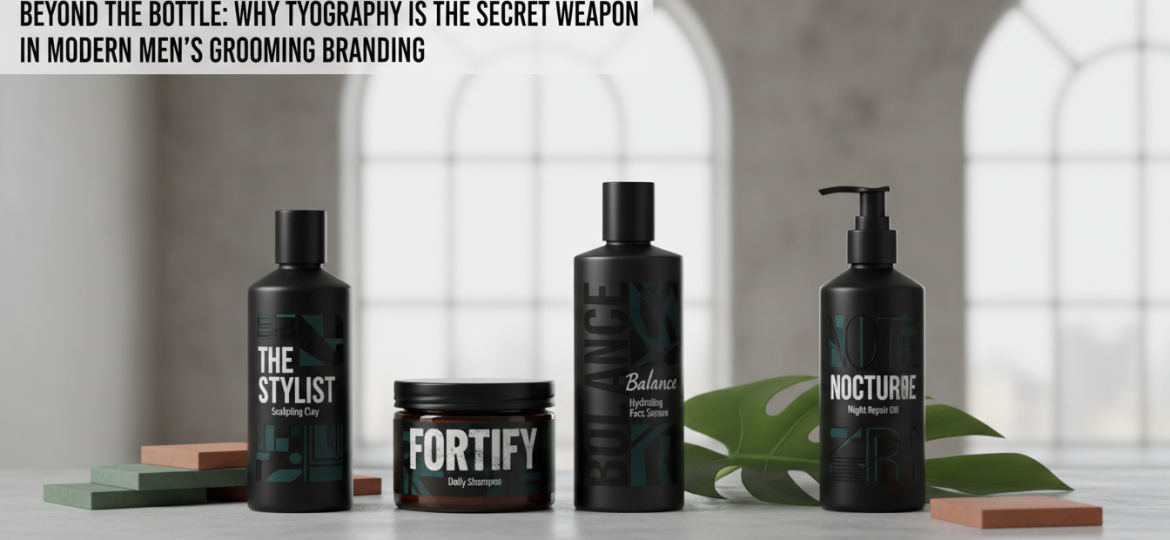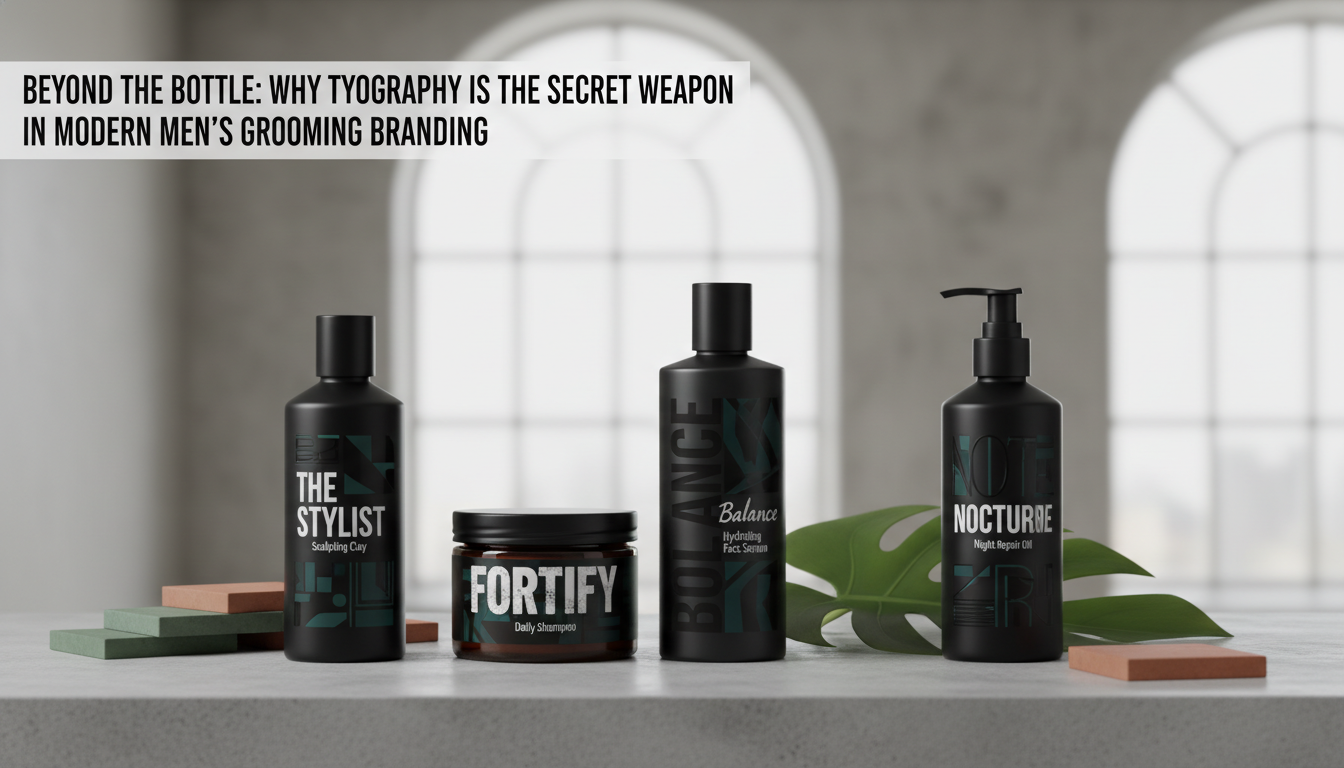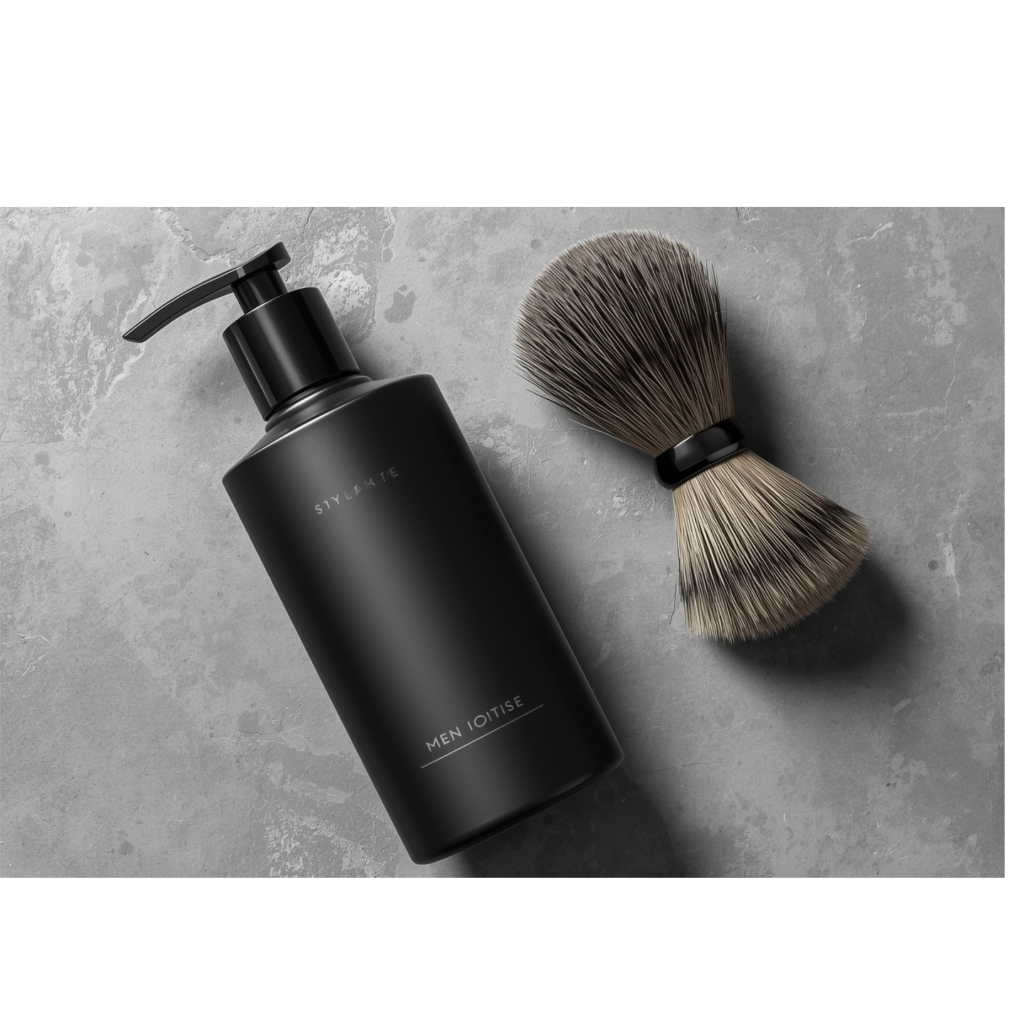
The modern man’s bathroom cabinet has undergone a profound transformation. Gone are the days of aggressive, neon-colored ‘3-in-1’ body washes screaming from the shelves with jagged, hyper-masculine fonts. Today, we are witnessing a quiet revolution. If you are an entrepreneur or designer in this space, you must pay attention to this evolution. Discover how the shift in men’s grooming trends demands a new visual language. Learn why minimalist typography and packaging build premium brand identity. Recommended Fonts to Elevate Your Grooming Brand are not merely aesthetic choices; they are the very foundation of your market positioning.
In my experience analyzing hundreds of emerging direct-to-consumer (DTC) brands, the companies that thrive are those that respect their consumer’s evolving sophistication. Men now view skincare and grooming as acts of holistic wellness, not just basic hygiene. This psychological shift requires a completely different visual handshake.
Discover how the shift in men’s grooming trends demands a new visual language.
Learn why minimalist typography and packaging build premium brand identity. Recommended Fonts to Elevate Your Grooming Brand
Let’s break down this massive paradigm shift. Why exactly does a change in consumer habits dictate a change in typography and packaging?
The answer lies in cognitive fluency and perceived value. When a product is housed in a cluttered, loud bottle, the brain instantly associates it with mass-market, low-tier commodities. It feels cheap. Contrast this with a heavy, matte-black glass bottle featuring a single line of perfectly kerned sans-serif text. Immediately, without reading a single word of the ingredients, the consumer expects to pay a premium. It feels exclusive. It feels intentional.
Minimalism in packaging creates a ‘white space’ that allows the quality of the product to speak for itself. It signals confidence. A brand that uses minimalist typography is essentially saying, ‘Our formulation is so superior, we don’t need gimmicks to sell it.’
The Psychology of Minimalist Typography in Premium Grooming
Typography is the silent ambassador of your brand. When we talk about men’s grooming trends and the new visual language, we are largely talking about the death of ‘macho’ fonts.
We have traded distressed display fonts for sophisticated geometric sans-serifs and elegant transitional serifs. Why? Because the modern grooming consumer values transparency, science, and self-care. Clean typography communicates clinical efficacy and purity of ingredients.
Consider the brands dominating the premium market right now. Their packaging feels almost apothecary-like. The minimalist typography strips away gender stereotypes, offering a universally appealing, high-end aesthetic that looks just as good on a curated Instagram feed as it does on a marble countertop.
Recommended Fonts to Elevate Your Grooming Brand
To help you capitalize on this shift, here is a curated selection of recommended fonts that perfectly capture the new visual language of men’s grooming. These selections balance masculinity with modern elegance.
1. Honick – Clean and Modern Geometric Sans
A modern reworking of an absolute classic. Helvetica Now offers incredible legibility and a stark, neutral confidence. It is the ultimate choice for a brand that wants to position itself as clinical, scientifically backed, and highly effective. When used in all-caps with generous tracking (letter spacing), it screams luxury.
2. Poppis – Modern Geometric Sans Serif with Cyrillic
If your brand wants to feel approachable yet premium, GT Walsheim is a spectacular choice. It is a geometric sans-serif that feels slightly warmer and more human than strict grotesques. It works beautifully on minimalist packaging, especially when paired with earth tones or muted pastels—a color palette heavily trending in the new visual language of men’s wellness.
3. Good Rome – The Future of Sans Serif
Who says men’s grooming cannot use serifs? Ogg is a calligraphic serif font that exudes heritage, luxury, and organic craftsmanship. If your grooming brand focuses on botanical ingredients, artisanal shaving creams, or premium beard oils, Ogg provides an immediate sense of established history and high-end exclusivity.
4. Bomerch Modern Display Font
Avenir means ‘future’ in French, and it perfectly encapsulates the forward-thinking shift in men’s grooming trends. It is incredibly versatile. Use the bold weights for striking, authoritative product names, and the light weights for clean, readable ingredient lists.
Implementing the New Visual Language
Transitioning to this new visual language requires more than just swapping out a font. It demands a holistic approach to your packaging design.
First, audit your current use of space. Are you trying to communicate too much on the front of the bottle? Move the noise to the back. Embrace negative space.
Second, reconsider your materials. Minimalist typography relies heavily on tactile experiences. A beautiful font printed on cheap, glossy plastic loses its premium feel. Pair your new typography with soft-touch finishes, frosted glass, or brushed aluminum.
By taking the time to discover how the shift in men’s grooming trends demands a new visual language, and taking action to learn why minimalist typography and packaging build premium brand identity, you position your company at the forefront of a lucrative cultural wave. Choose your fonts wisely, embrace the white space, and watch your brand equity soar.